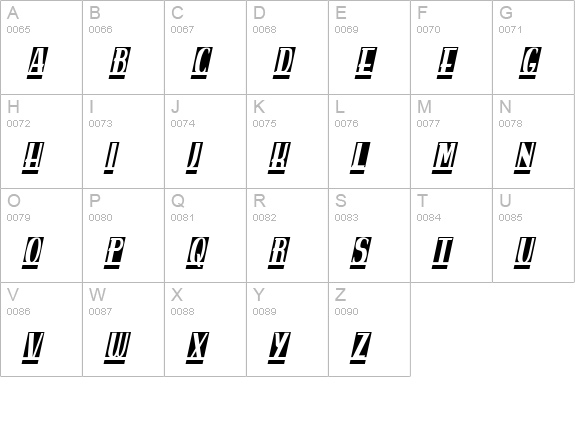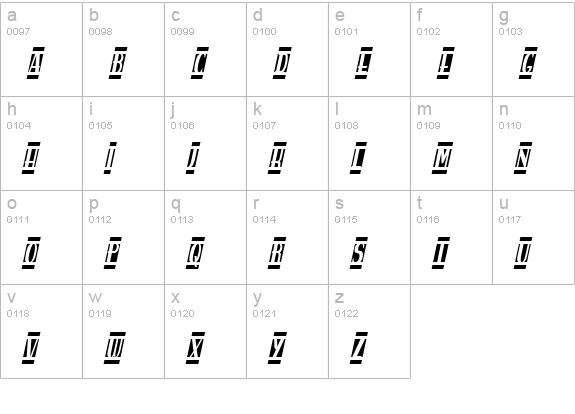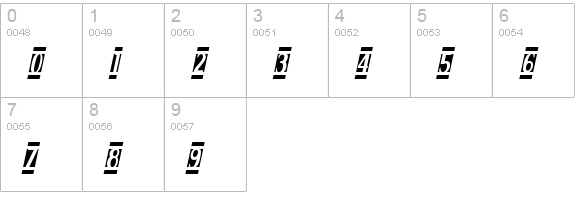
spanky's b blanco italico Font Details
Spanky's B Blanco Italico is an exquisite font that effortlessly combines elegance and style. With its uniquely curved letterforms and graceful strokes, this font captures attention and adds a touch of sophistication to any project. Whether you're designing a logo, crafting a wedding invitation, or creating a stunning display, Spanky's B Blanco Italico is the perfect choice. What sets this font apart is not only its stunning design, but also the fact that it is freely available to download at FontsMarket.com. This means that you can enjoy the beauty of Spanky's B Blanco Italico without any cost, making it an incredible asset for both personal and commercial use. Its versatility allows it to shine in a variety of contexts, from print to digital, ensuring that your designs will always stand out from the crowd. The attention to detail in Spanky's B Blanco Italico is truly remarkable. Each letter has been carefully crafted to create a harmonious flow, resulting in a font that is pleasing to the eye and easy to read. The italics add a subtle twist to the traditional design, giving your projects a touch of flair and individuality. Whether you're a professional designer or a hobbyist, Spanky's B Blanco Italico is a font that will elevate your work to new heights. Its timeless beauty and versatility make it a must-have in any font collection. So why wait? Head over to FontsMarket.com today and download this stunning font for free. Unleash your creativity and let Spanky's B Blanco Italico transform your designs into true works of art.